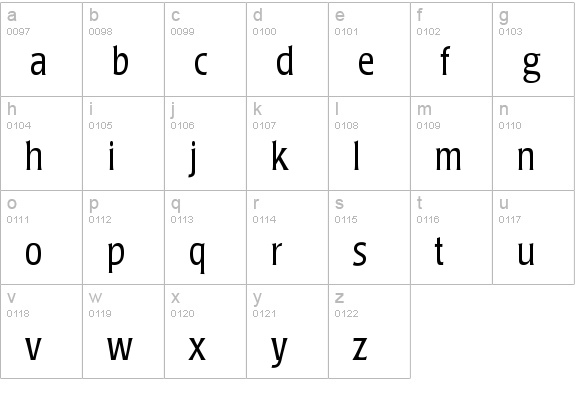
Poppl-Laudatio Condensed BQ Light is a refined, elegant, condensed-width variant in the Poppl typeface family \xE2\x80\x94 well suited to elegant body text, refined sub-headings, and luxury branding.
Poppl-Laudatio Condensed BQ Light font is a sleek and elegant typeface that exudes sophistication and modernity. Its clean lines and subtle curves make it perfect for a wide range of design projects, from branding to editorial design. The light weight of this font adds a delicate touch to any text, making it ideal for conveying a sense of refinement and elegance. What sets Poppl-Laudatio Condensed BQ Light font apart is not only its timeless design, but also the fact that it is freely available to download at FontsMarket.com. This means that you can easily access this high-quality font for your personal or commercial projects without any cost. Don't miss out on the opportunity to enhance your designs with the beauty of Poppl-Laudatio Condensed BQ Light font. Download it today and elevate your work to the next level.